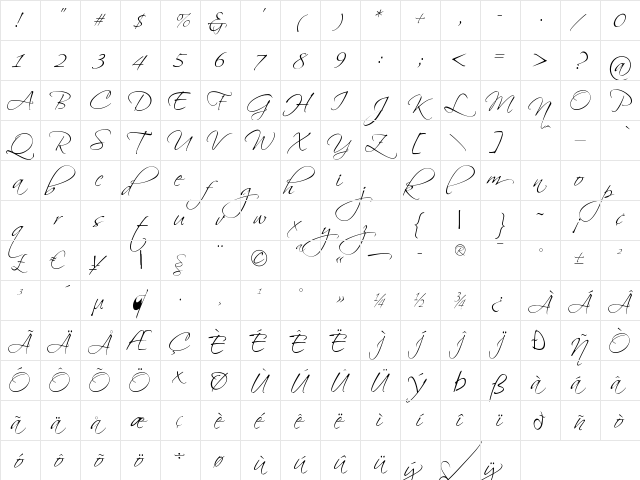
Scriptina Regular
Design Context for Scriptina Typeface
Scriptina flows with the natural rhythm of handwritten lettering, making it ideal for designs that call for warmth and personal expression.
Font Pairing: Combine Scriptina with a simple geometric sans for maximum contrast — the tension between flowing curves and clean structure is a classic typographic pairing.
Pro Tip: Pair Scriptina with a clean sans-serif for supporting text. The contrast between fluid script and geometric structure creates an elegant typographic hierarchy.